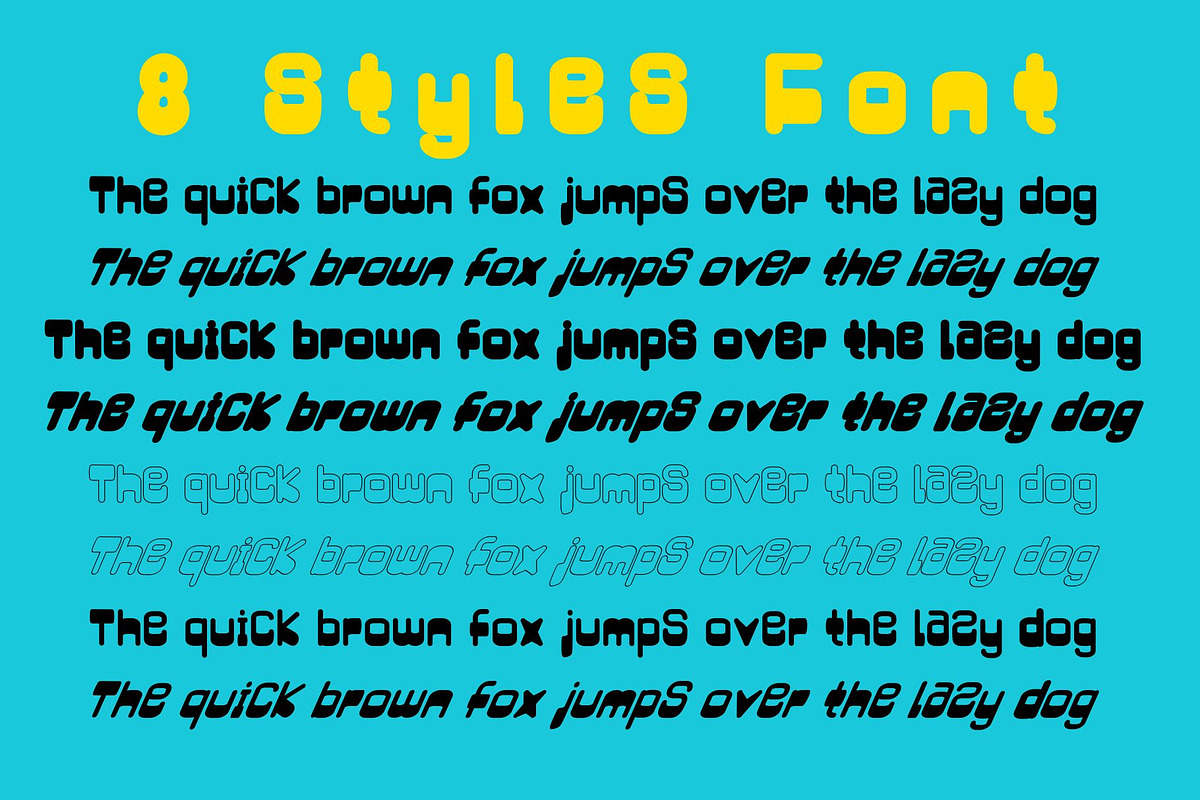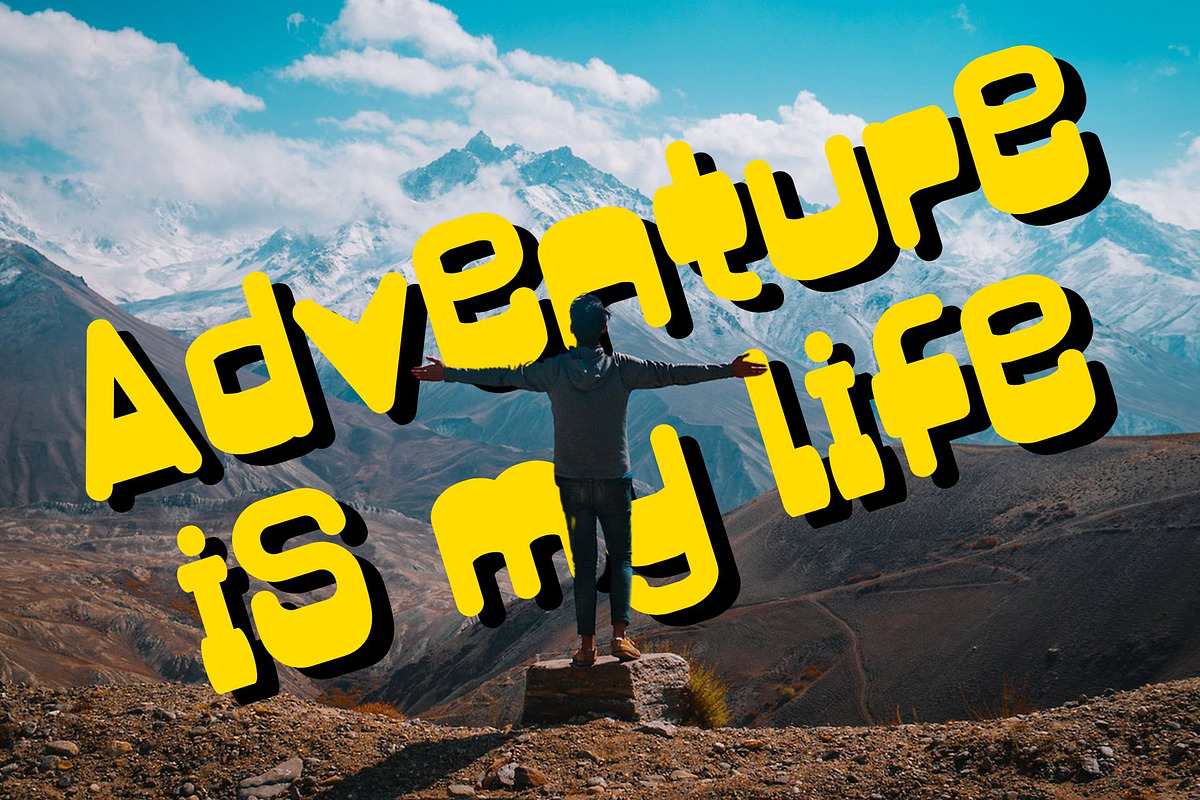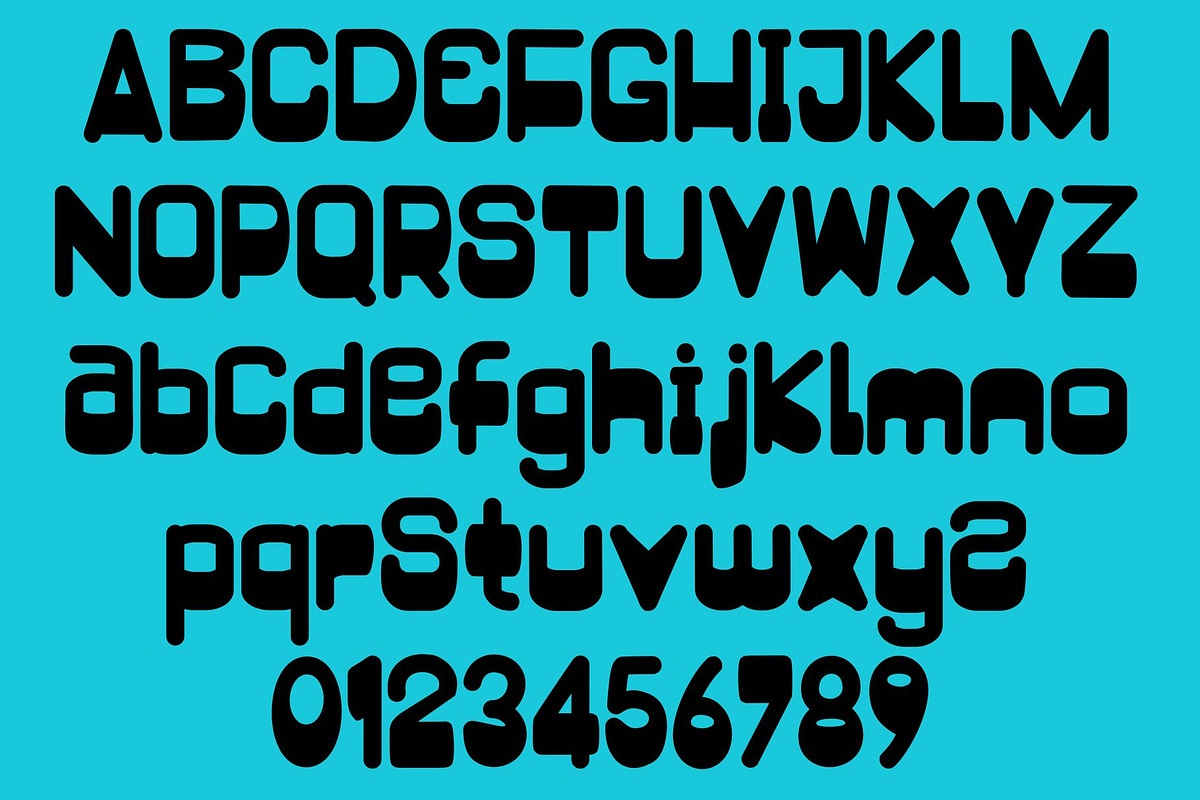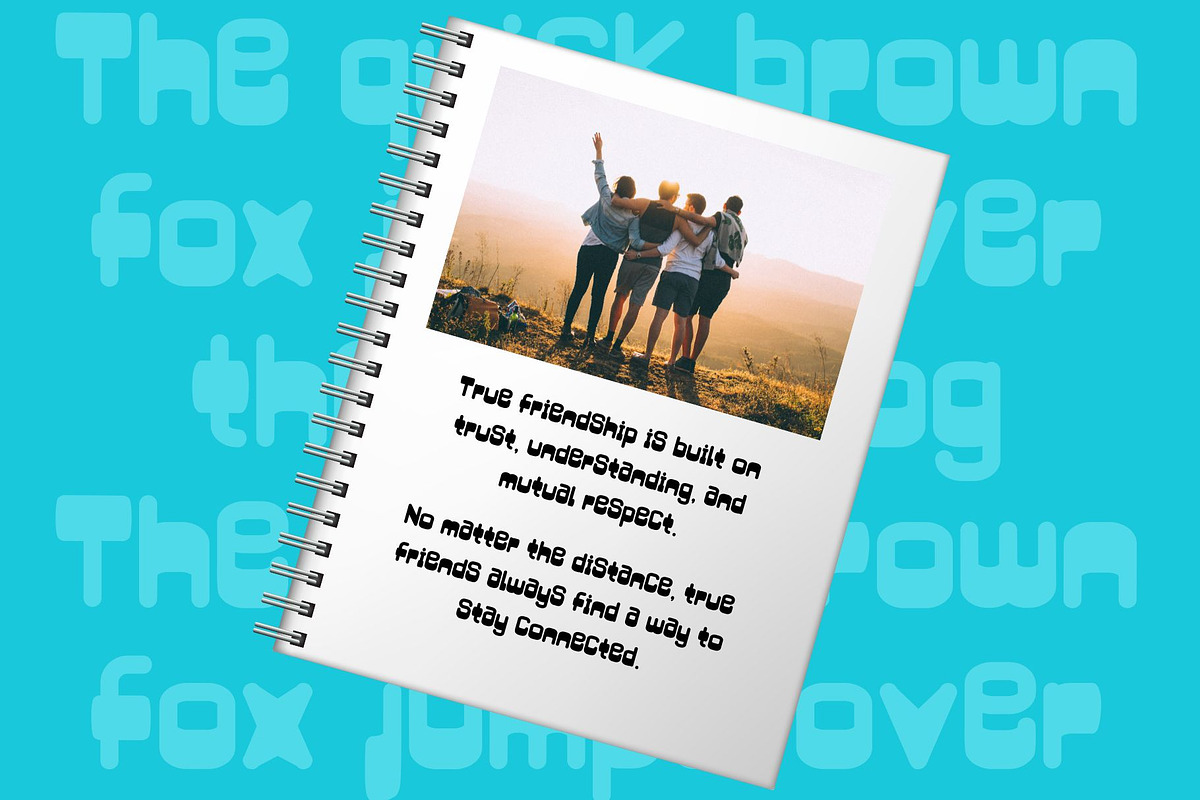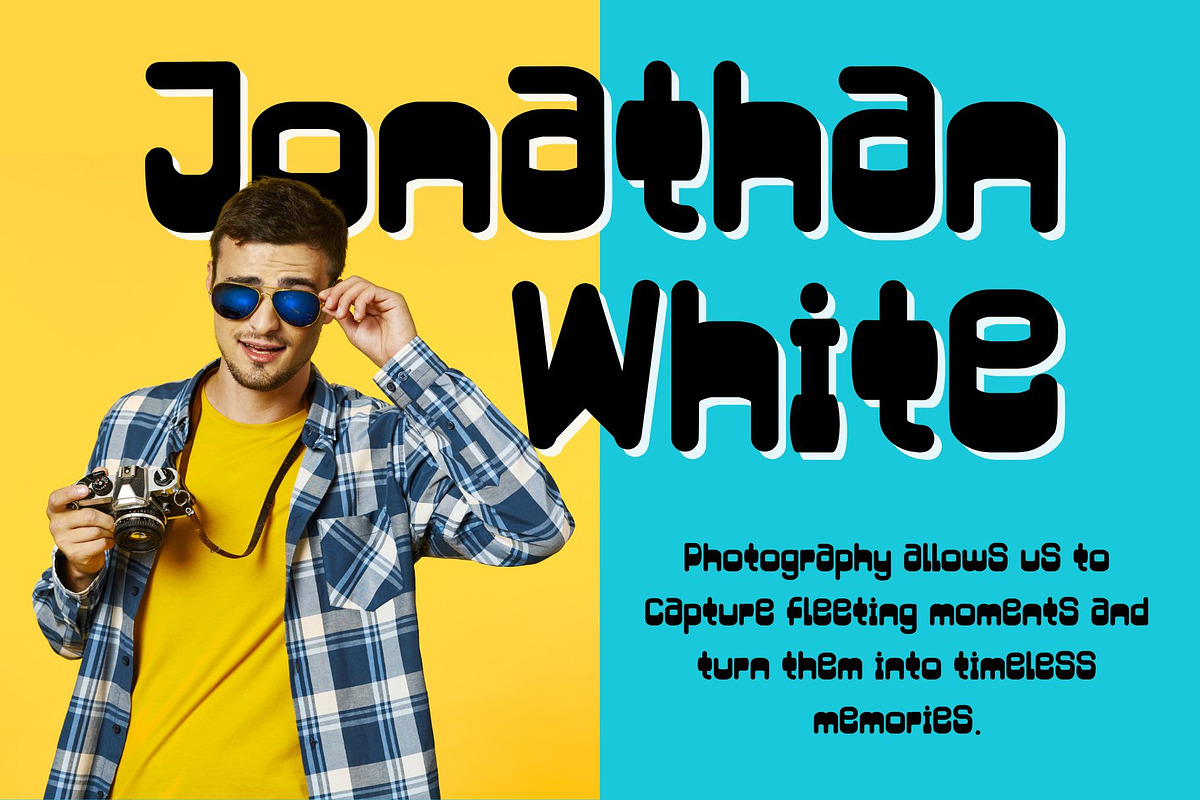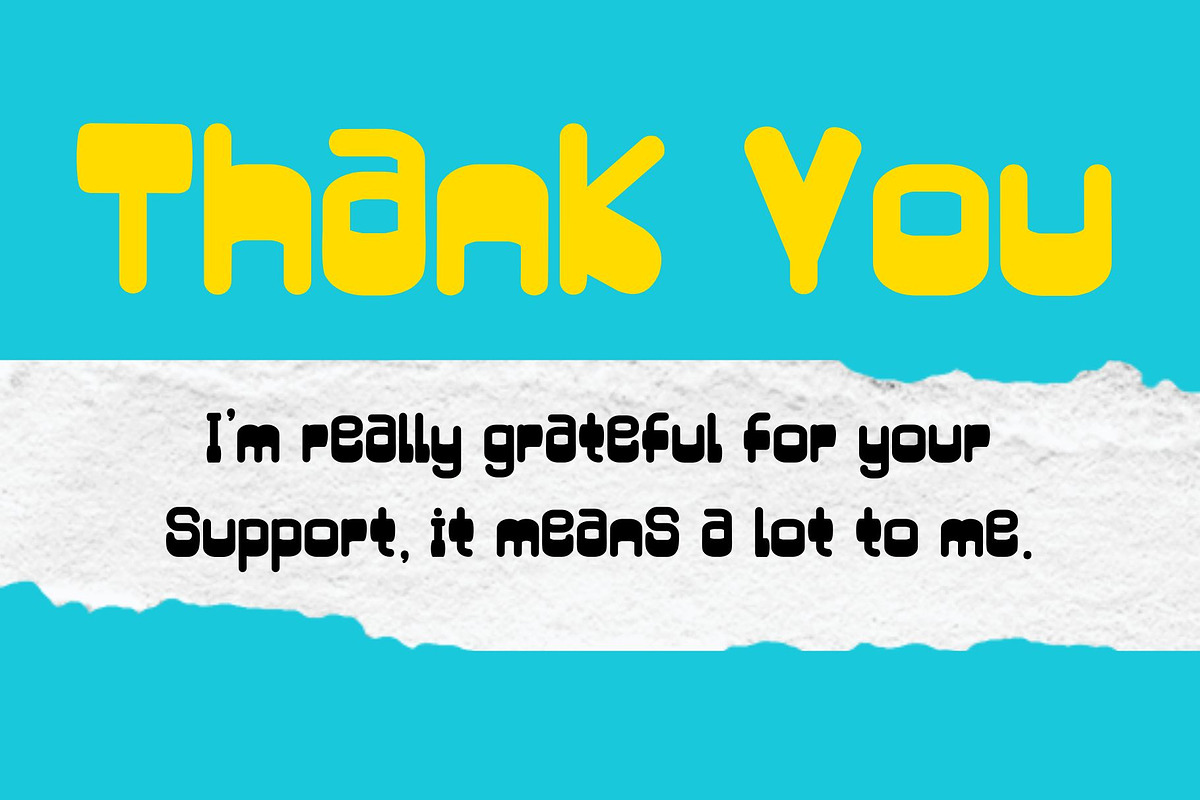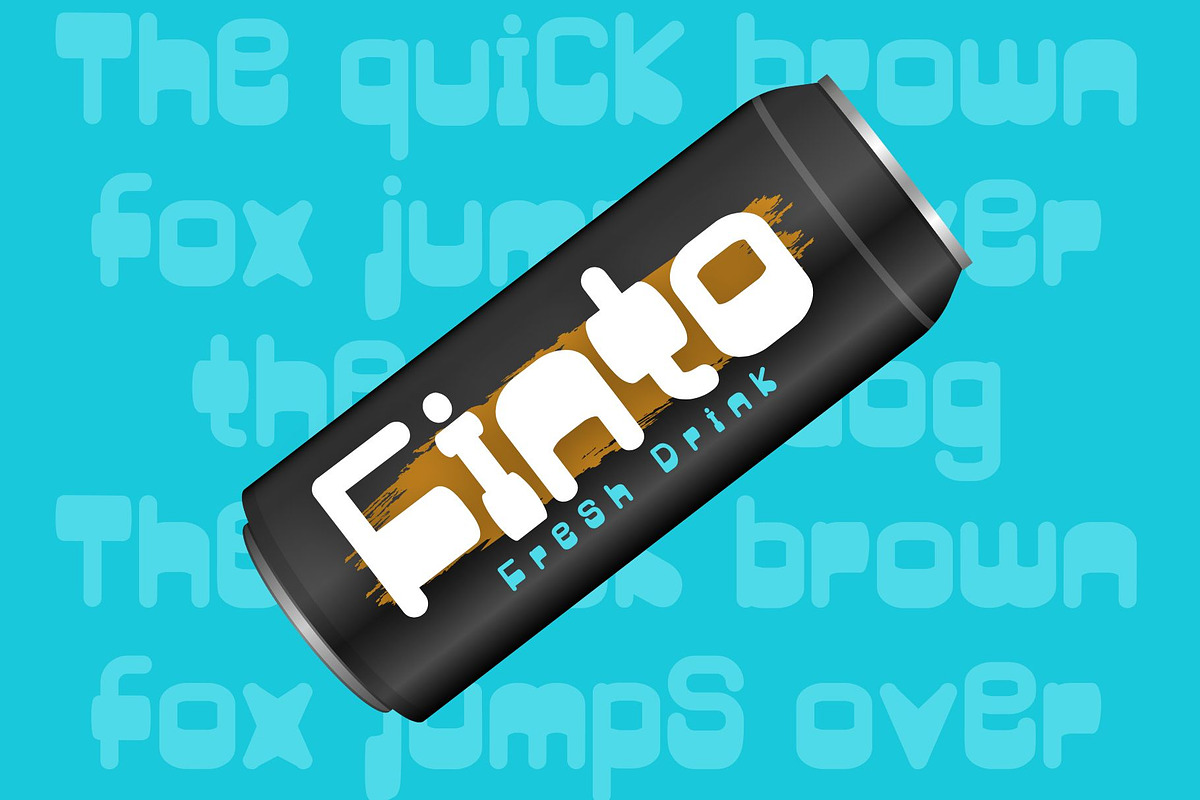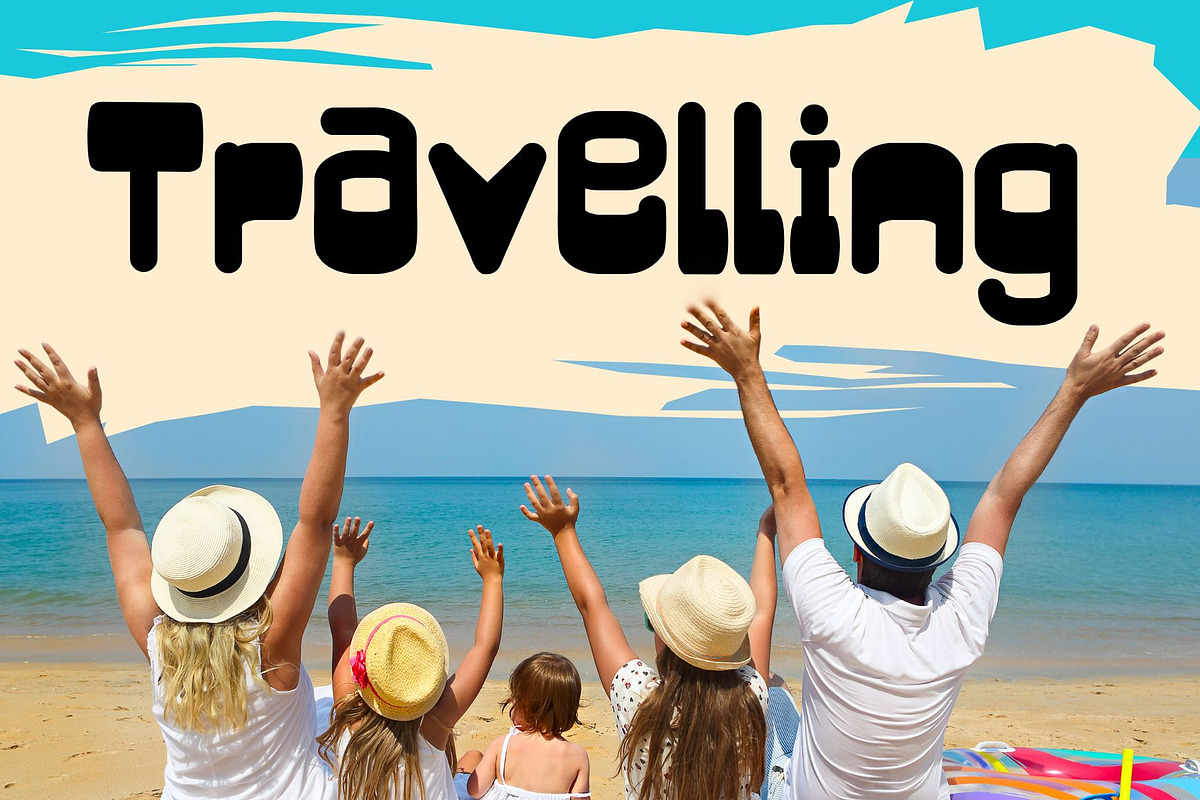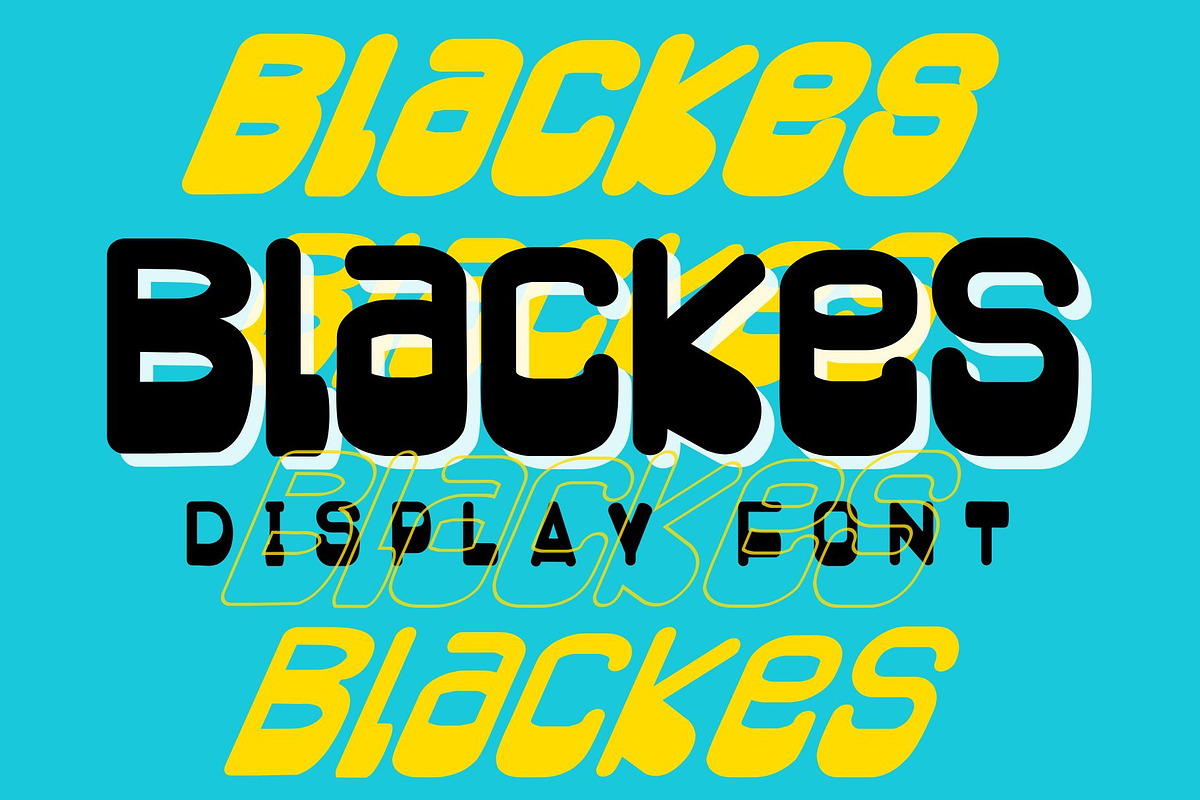
Blackes
Dive into the world of typography with "blackes", an ultra-modern display font family that artistically uplifts any design horizon. Magnificently versatile, blackes illuminates the canvas with its 8 distinct styles, each with its own unique persona. The multiplicity of blackes means you'll always have an array of options perfectly tailored to meet your design intentions. Immerse yourself in the typographic harmony of blackes, a font family that aligns elegantly with every designer's vision.